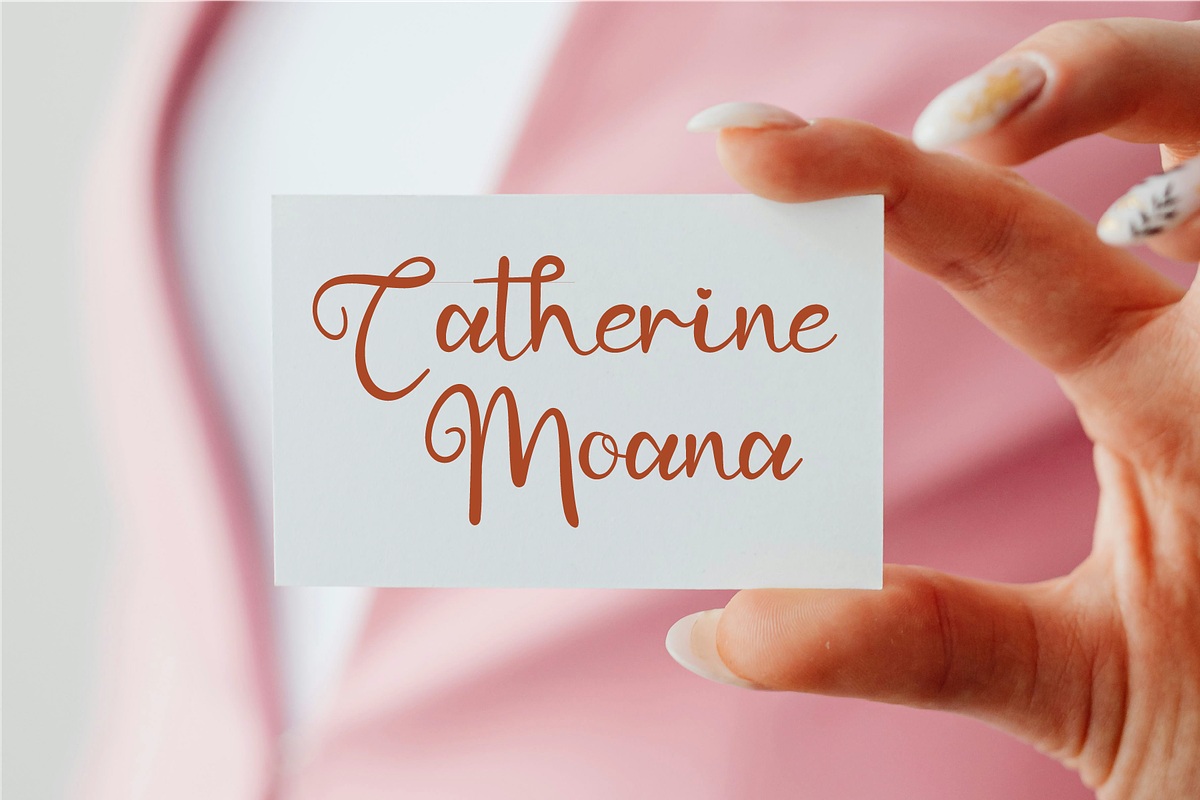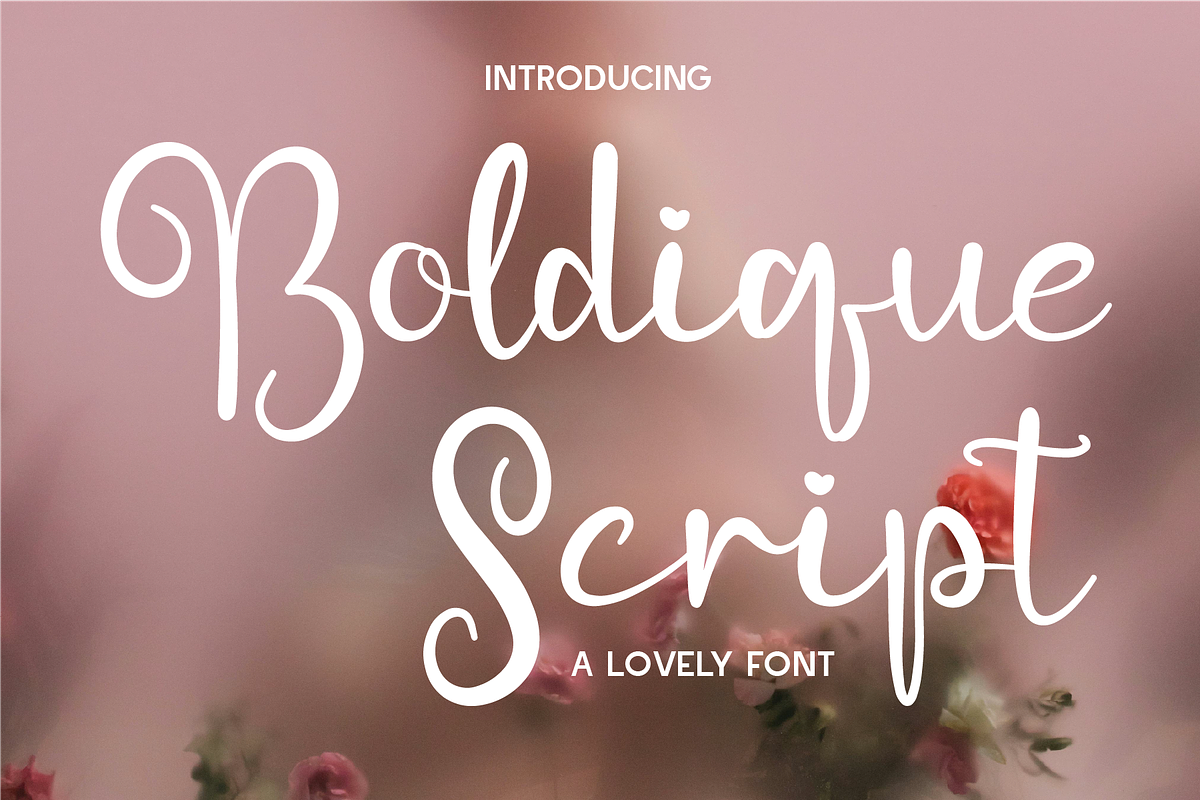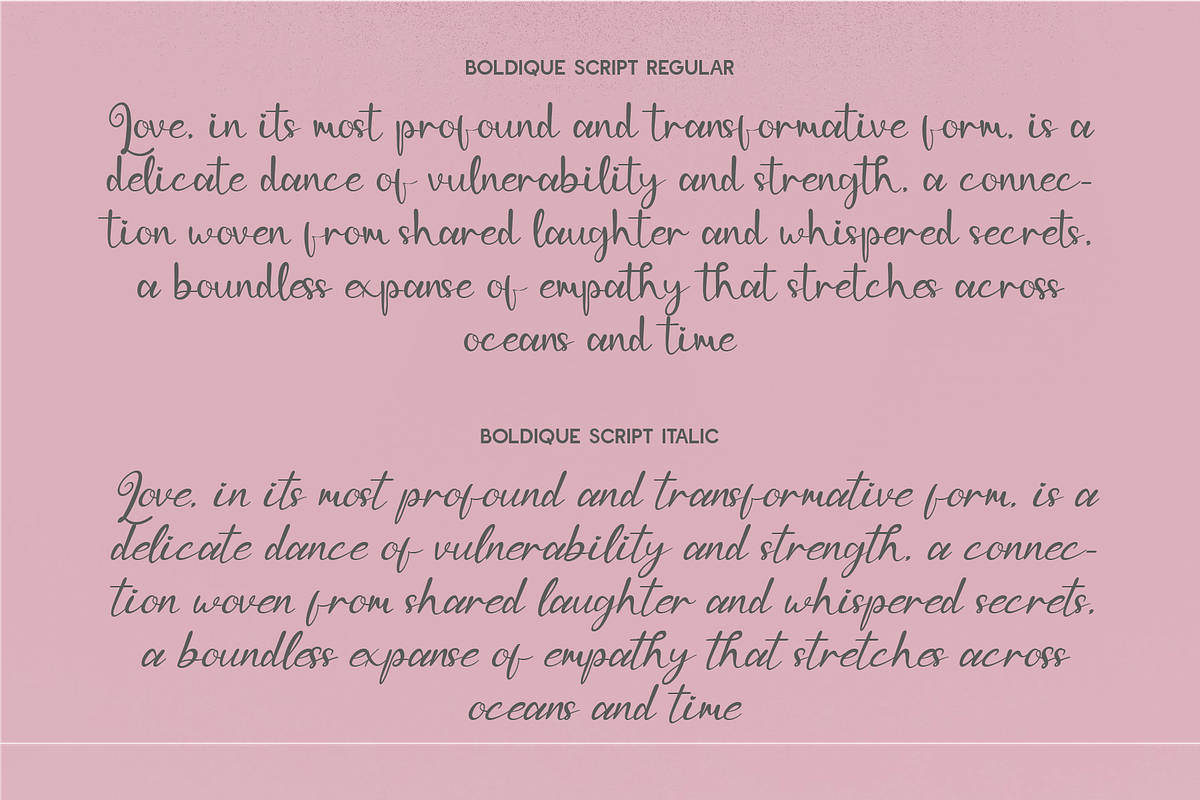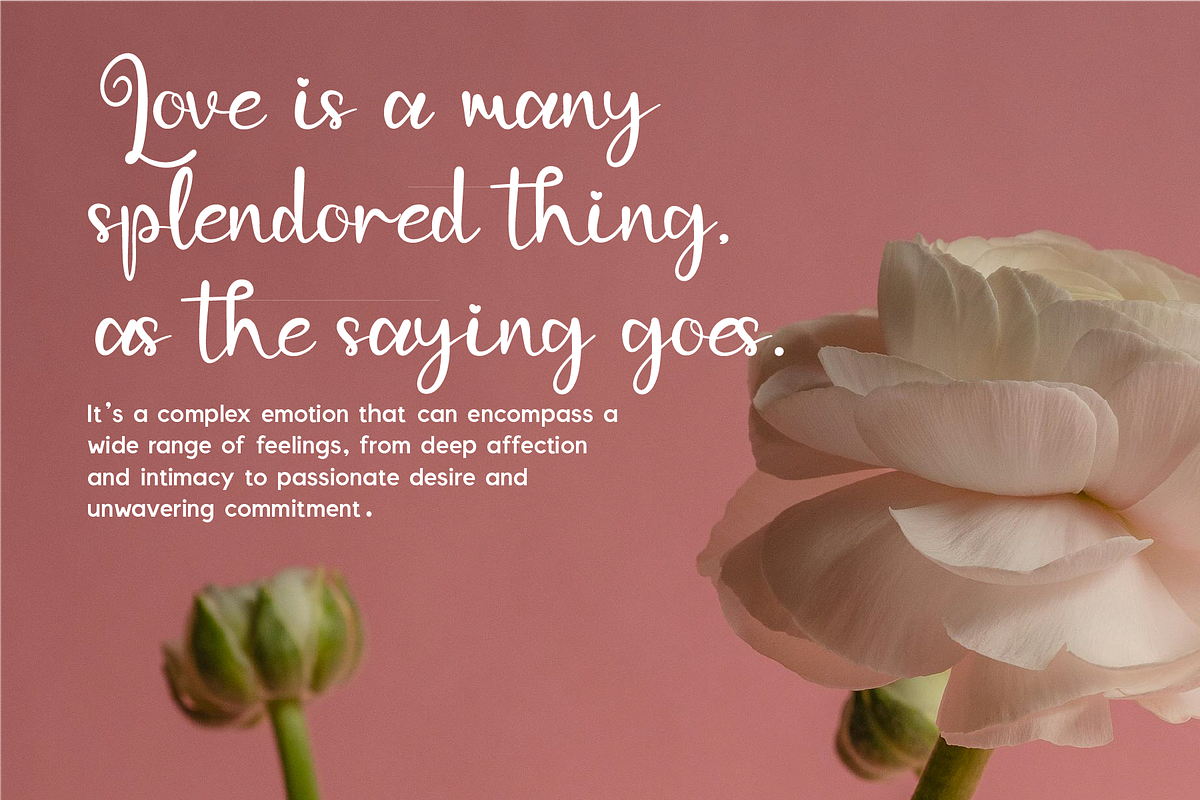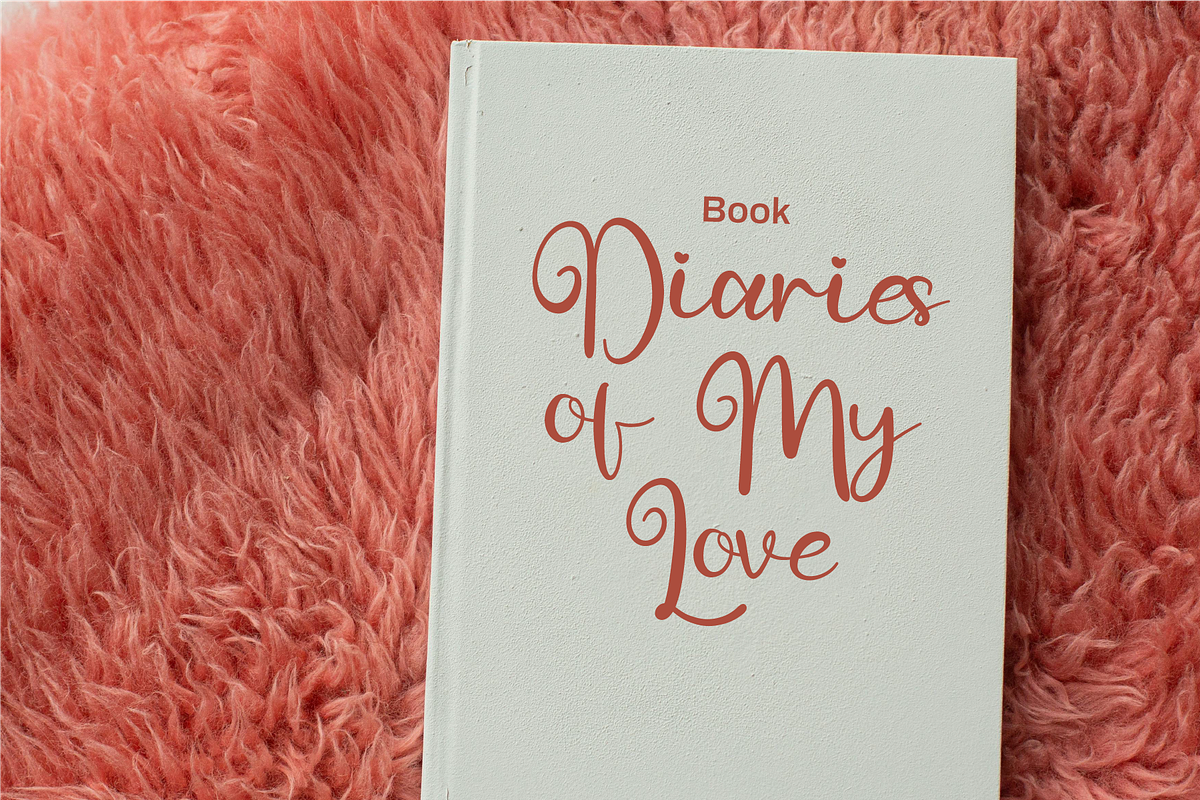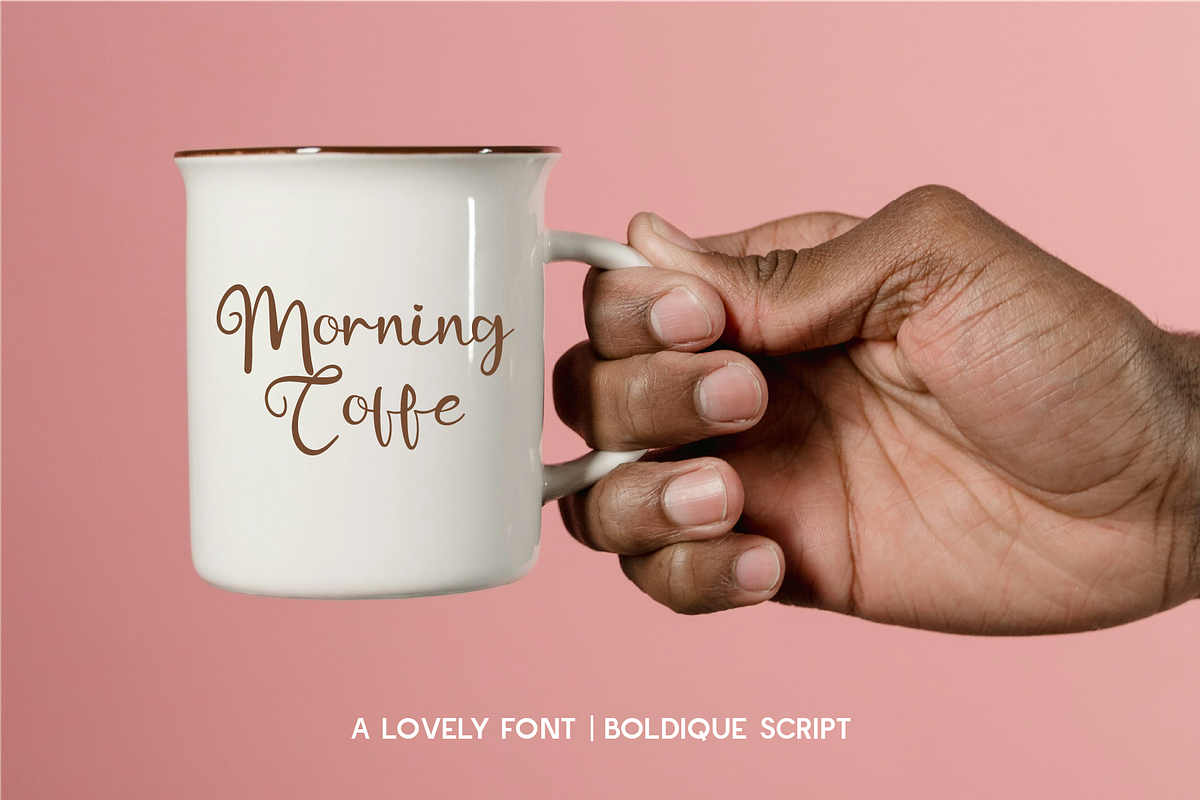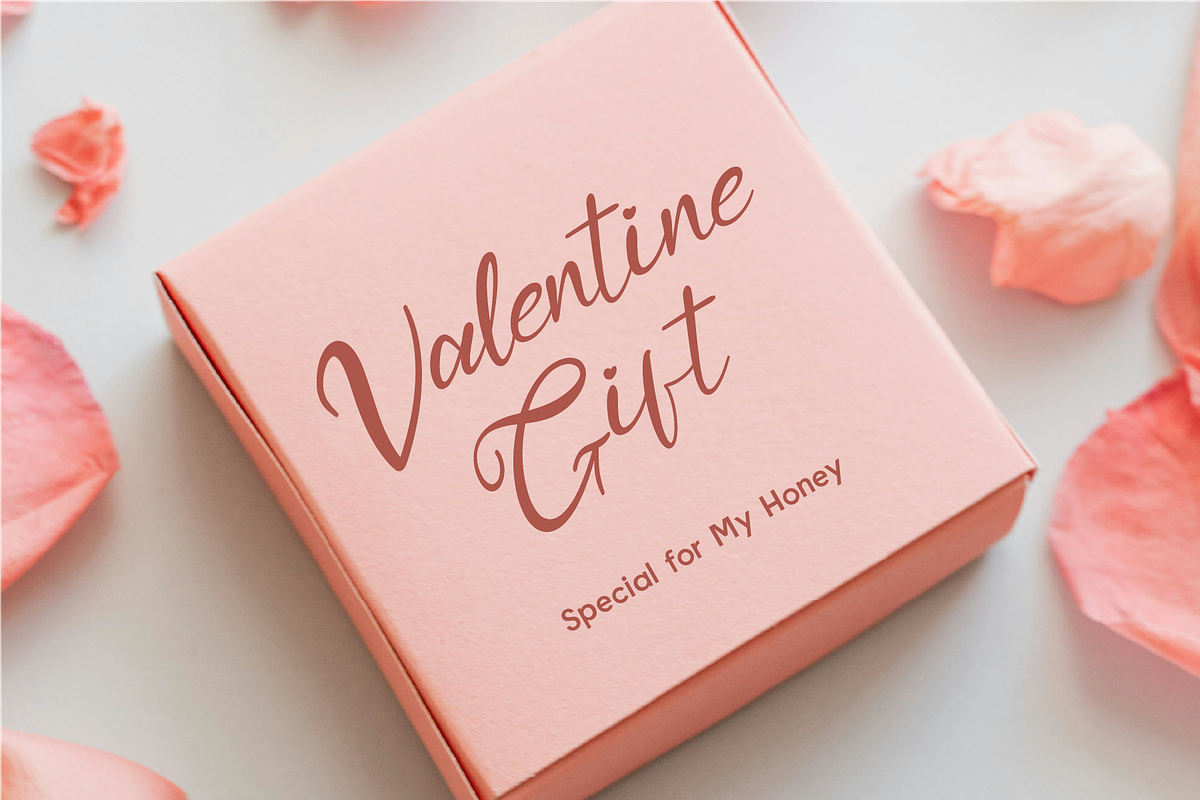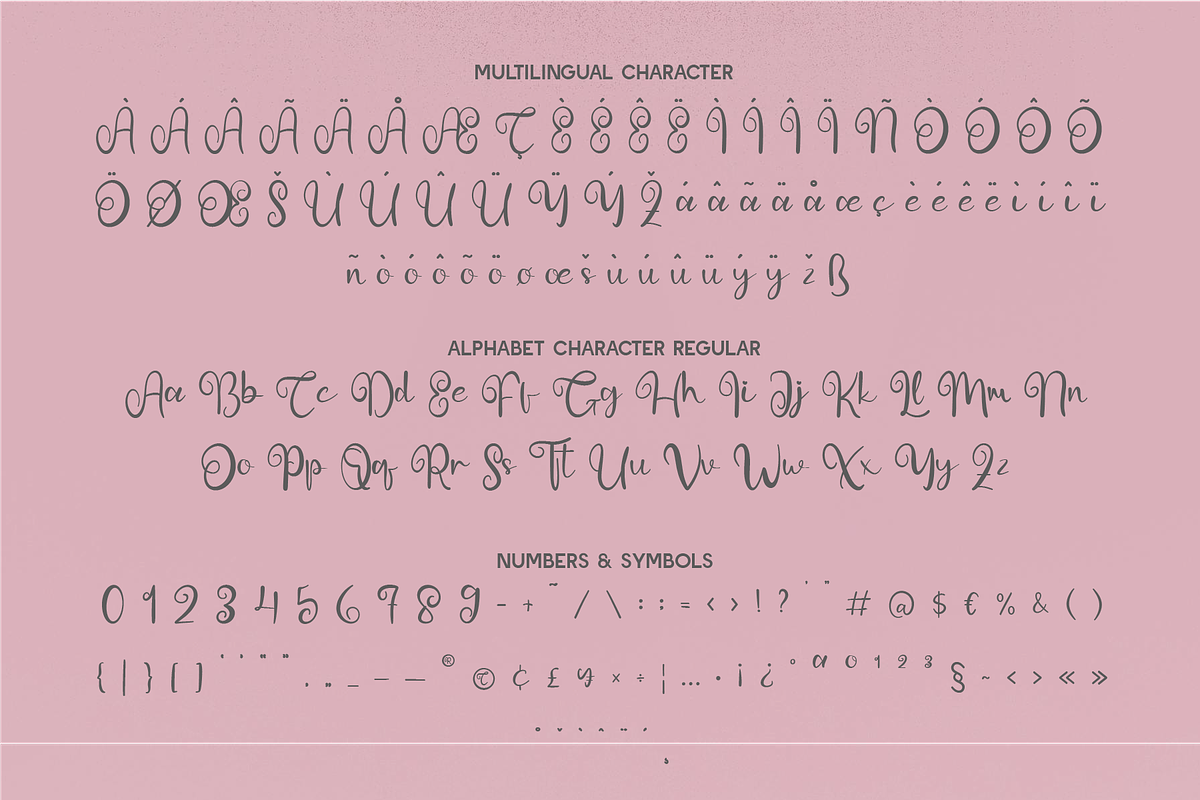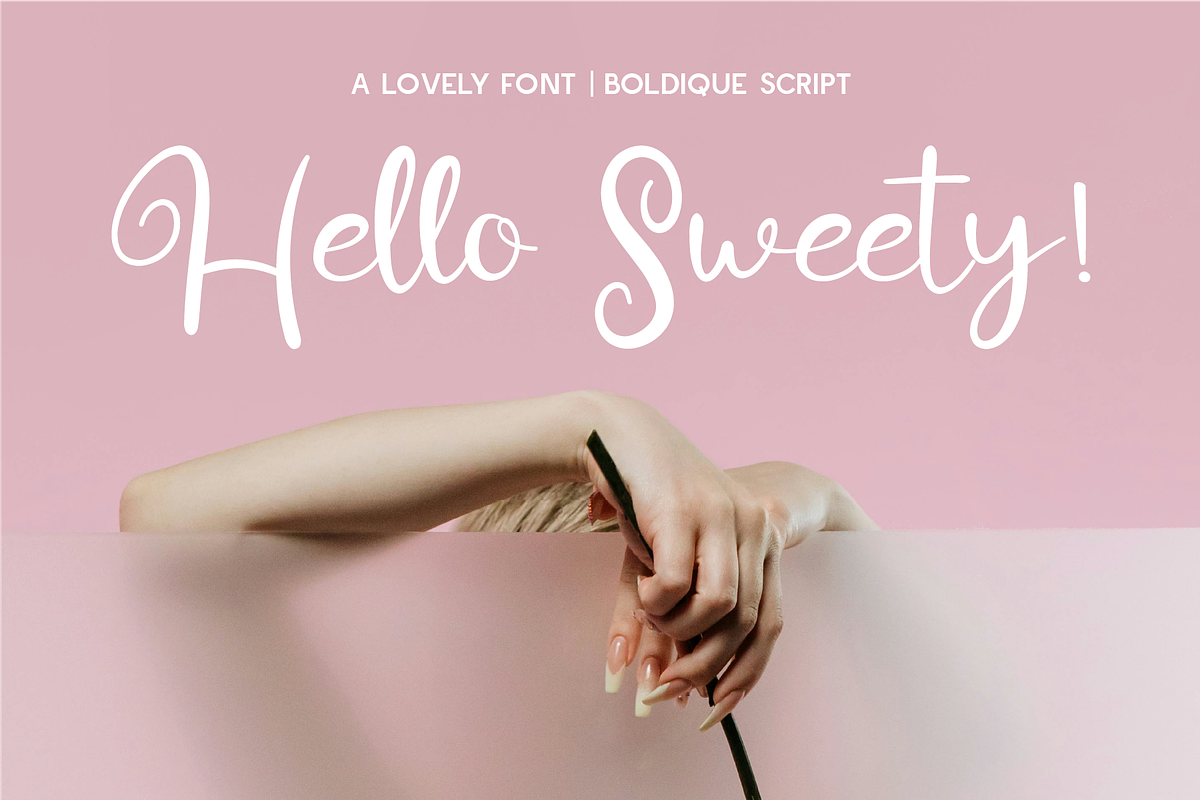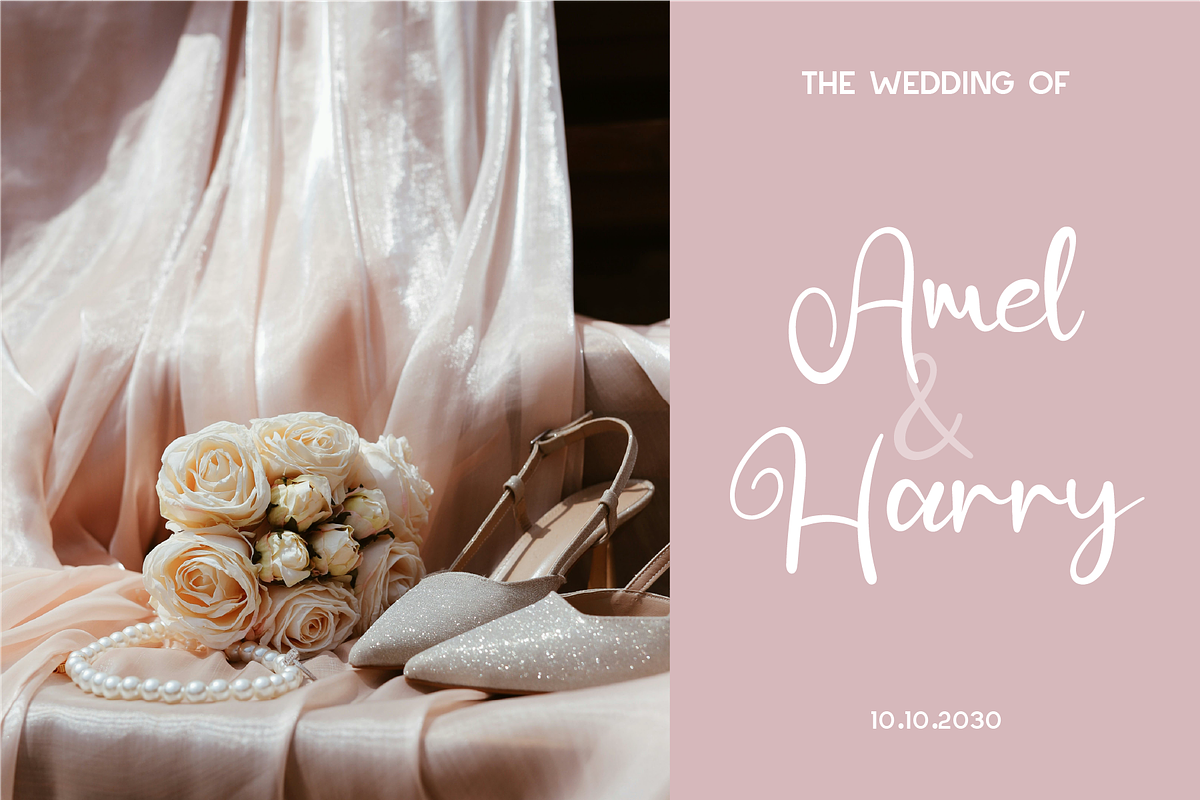
Boldique Script - Lovely Script
Boldique Script – A Lovely and Playful Script Font Elevate your designs with Boldique Script, a charming and expressive script font that radiates elegance and warmth. With its fluid, handcrafted strokes and delightful heart-shaped details, this font brings a touch of romance and personality to any project. Designed to be versatile and visually captivating, Boldique Script seamlessly blends a modern calligraphic style with a casual yet refined aesthetic. The smooth curves, varying stroke thickness, and well-balanced letterforms make it perfect for branding, wedding stationery, social media graphics, product packaging, and more.
Why Choose Boldique Script?
✔ Elegant & Playful: A perfect blend of sophistication and charm with subtle decorative accents. ✔ Natural Flow: Handwritten-style strokes create an organic and inviting feel. ✔ Versatile Usage: Ideal for logos, invitations, quotes, greeting cards, and boutique branding. ✔ Easy to Use: Designed for seamless legibility while maintaining a stylish, artistic look. Make a statement with Boldique Script—a font that turns simple words into unforgettable art. Get yours today and let your creativity flourish! ✨
- Standard Character A-Z, a-z, 0-9, Punctuation & symbols
- Regular and Italic